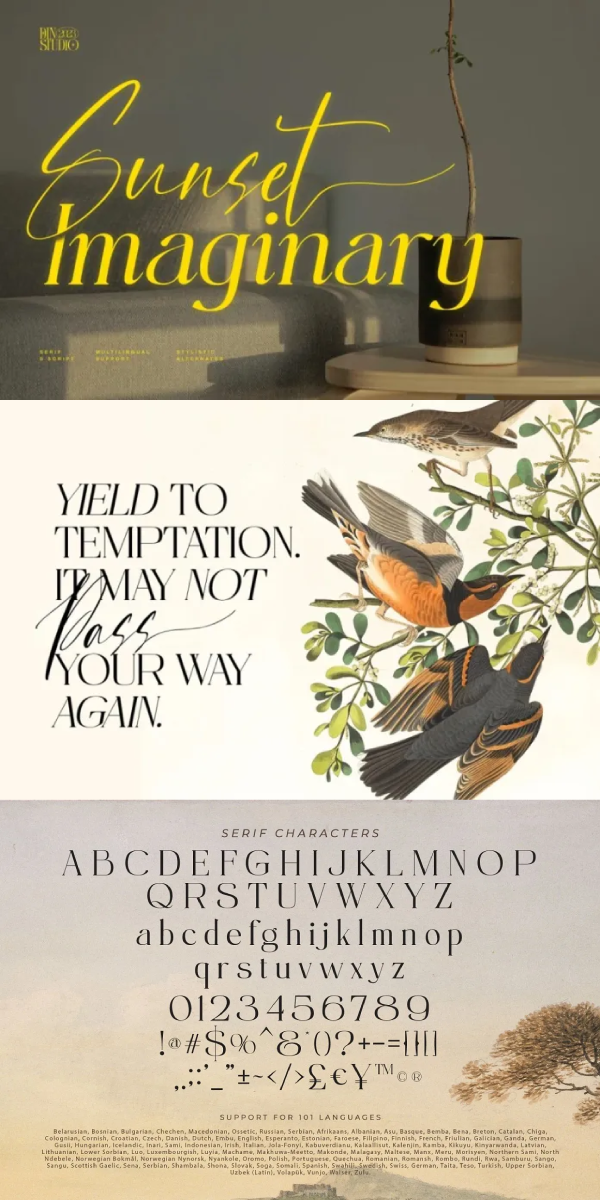
Sunset Imaginary
Sunset Imaginary is a captivating duo of fonts that brings together the charm of a handwritten style and the timeless elegance of a serif typeface. This combination creates a harmonious and versatile typographic pairing, perfect for a wide range of design projects. The first font in the Sunset Imaginary duo is a beautiful handwritten font.